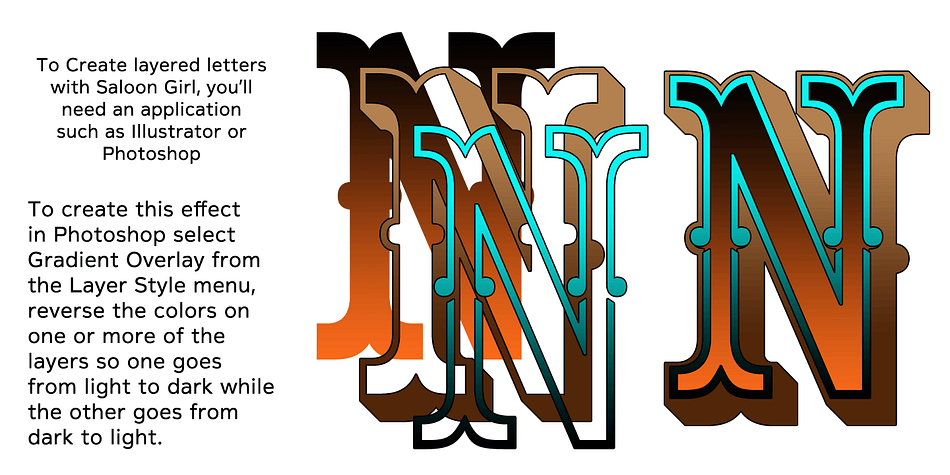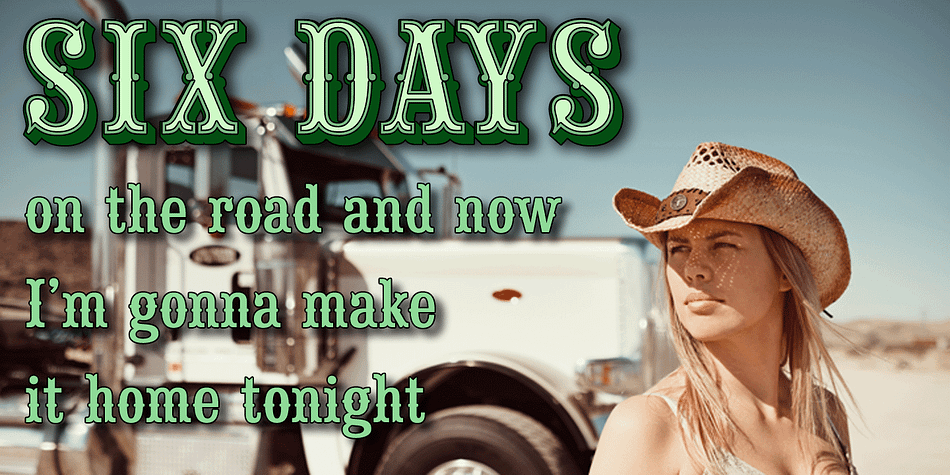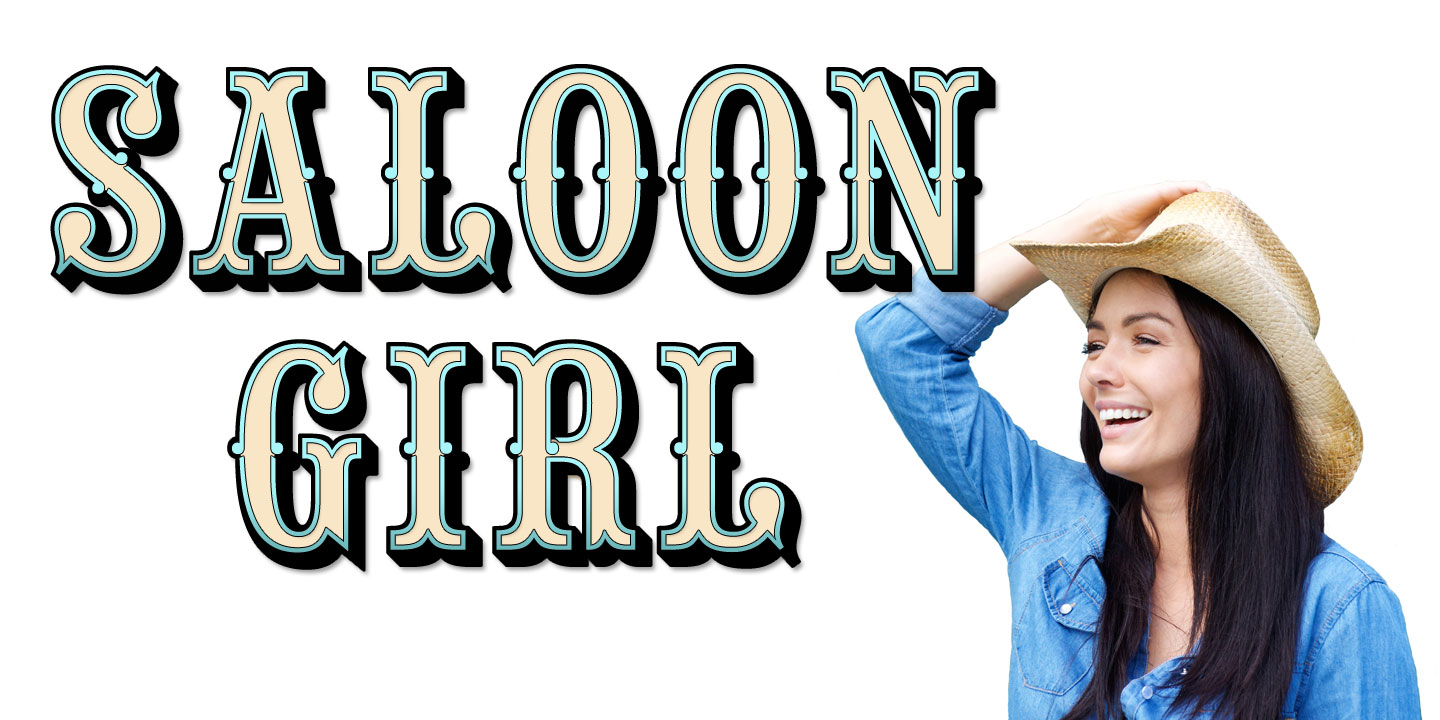
Saloon Girl is a western and wood type font family. This typeface has six styles and was published by FontMesa.
Saloon Girl is a revival of an old classic font used by sign painters and includes the rarely seen lowercase.
The Fill fonts for Saloon Girl are meant to be layered on top of or behind the Open, Inline and Dot versions, you will need an application that works in layers in order to use the fill fonts.